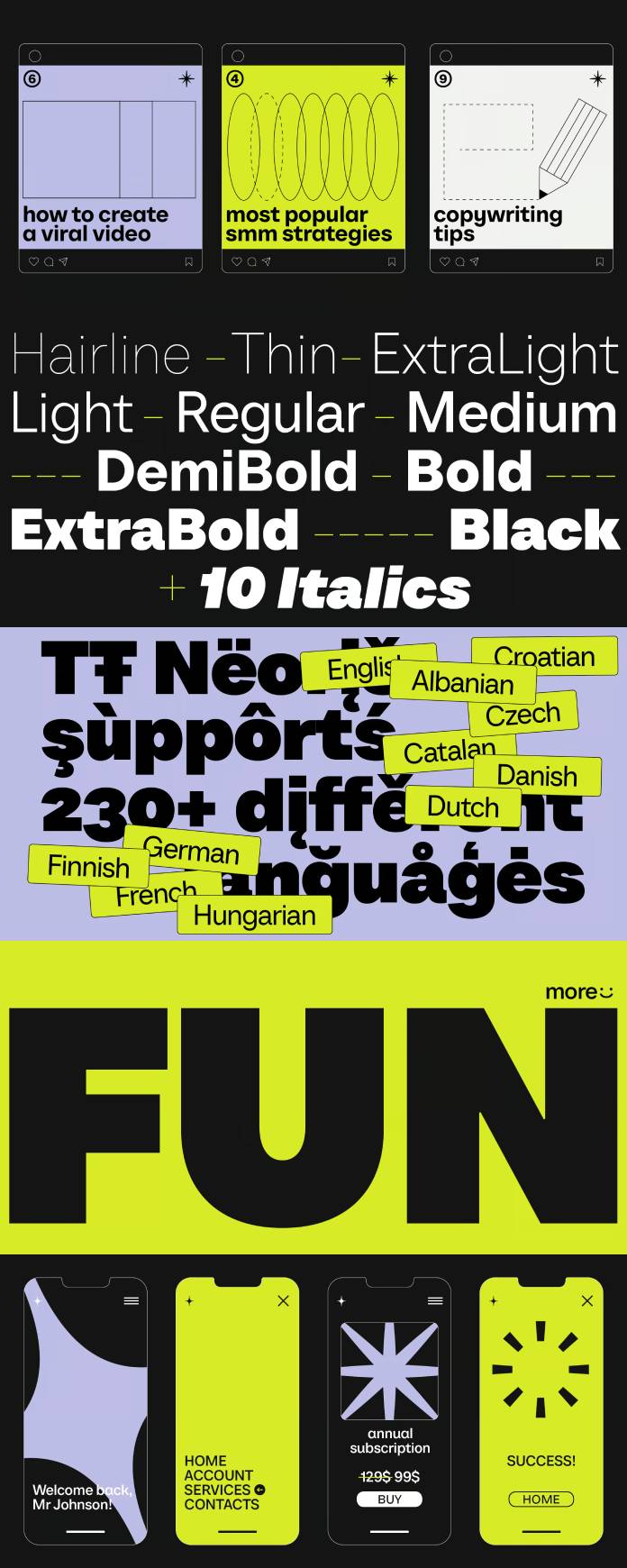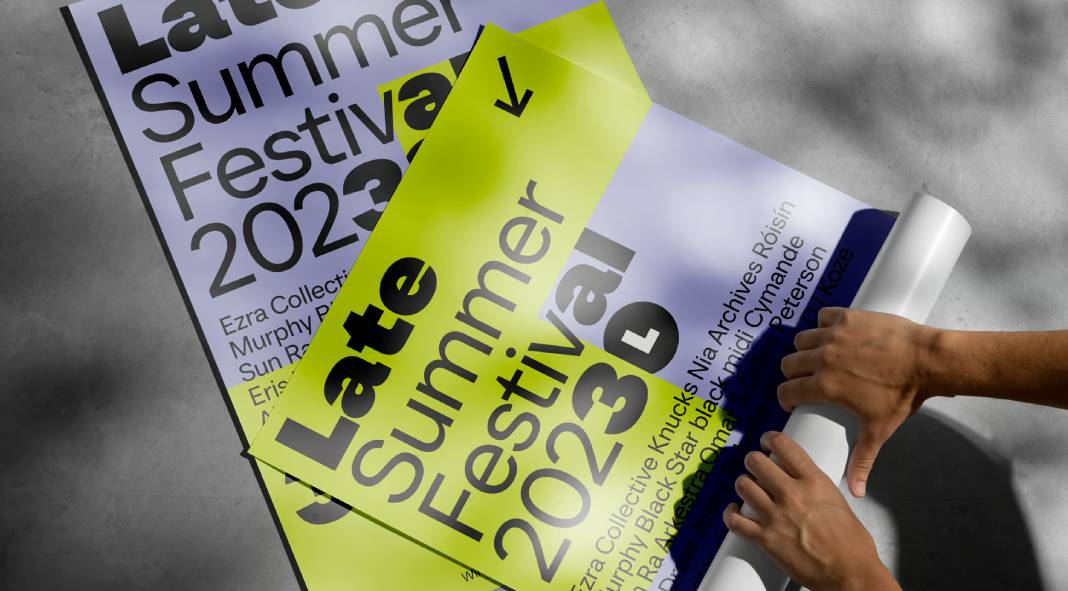
The TT Neoris font family from foundry TypeType is an elegant Neo-Grotesque typeface that embodies unlimited potential and caters to all modern design requirements and user desires. With its ample character set, support for over 230 languages, and an extensive range of OpenType features, TT Neoris is a comprehensive font that provides everything needed for design, and then some.
This font’s journey spans two and a half years of development, marked by meticulous research and user feedback. The aim was to create a neo-Grotesque that seamlessly blends neutrality with distinctiveness and freshness. The outcome, TT Neoris, is a technological marvel, offering functionality and adaptability that suits a wide array of design projects.
TT Neoris font family by TypeType
What sets TT Neoris apart is its remarkable versatility and adaptability. With an extensive array of features, this font can easily replace multiple others, offering the ability to transform its mood and style, making it a powerful tool for any creative endeavor.
Detail-oriented craftsmanship shines through in this font family. The Cyrillic italics are distinctly different from their Latin counterparts, drawing from the rich traditions of Cyrillic calligraphy. The boldest font style maintains a sense of solemnity akin to the regular version. In essence, TT Neoris offers a glimpse into the future of Neo-Grotesque fonts, showcasing a commitment to both aesthetics and functionality.
In summary, TT Neoris by TypeType is a font family that’s not only visually appealing but also an exemplar of modern design and adaptability. Its attention to detail and extensive feature set make it a versatile tool that can elevate a wide range of design projects. Whether you’re working on branding, editorial design, or web projects, TT Neoris is well-equipped to meet your needs and bring a touch of sophistication to your work.